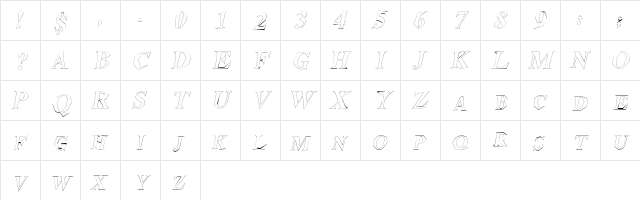
StegosaurusOutline Italic
Design Context for StegosaurusOutline Typeface
StegosaurusOutline brings ornamental detail and strong personality to headlines and identities, where visual impact matters more than quiet functionality. Its italic angle brings a sense of urgency and motion to the letterforms.
Font Pairing: Pair with a clean neutral sans-serif for body copy to let StegosaurusOutline's character lead without overwhelming the composition.
Pro Tip: Use StegosaurusOutline exclusively at display sizes — it was designed to be seen, not read at length. Let a neutral companion handle body copy.